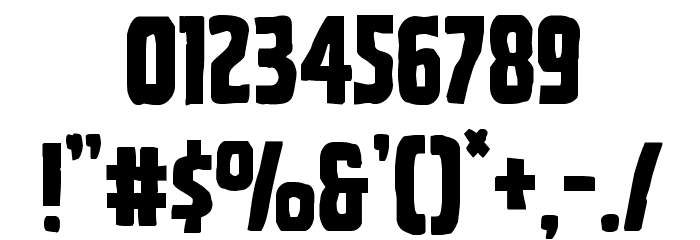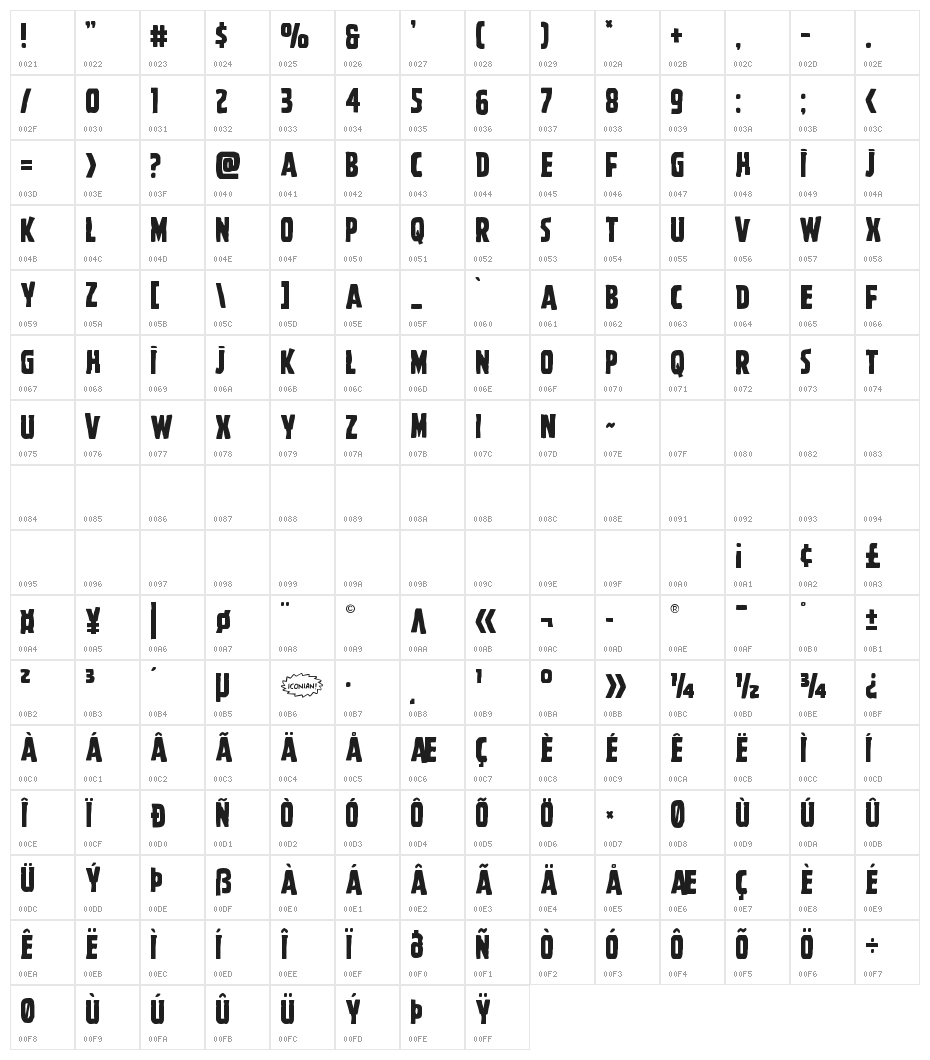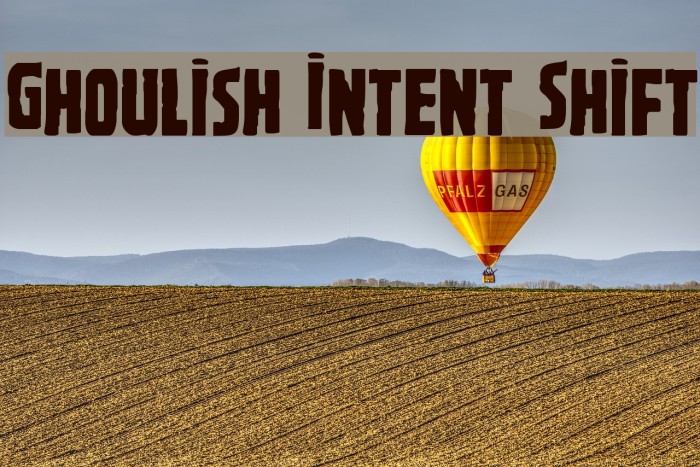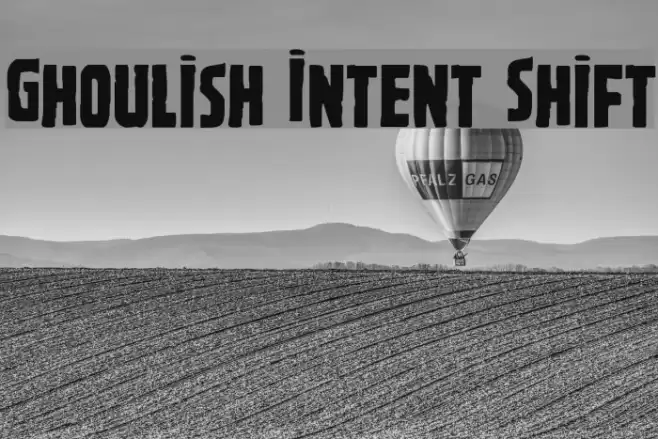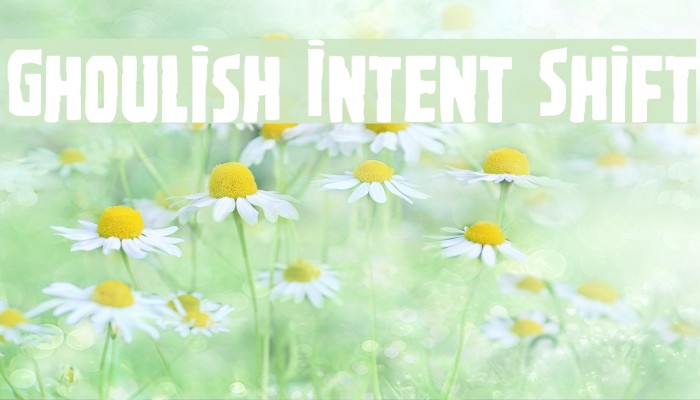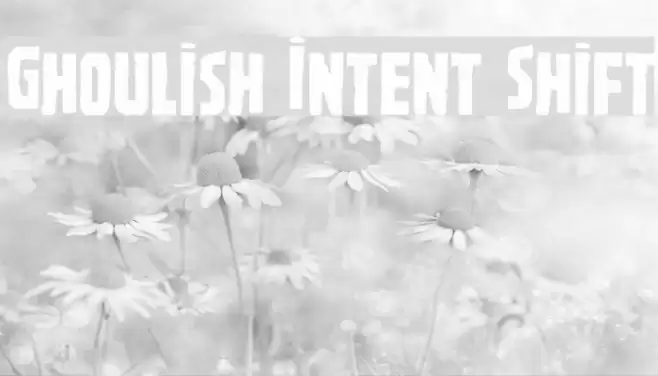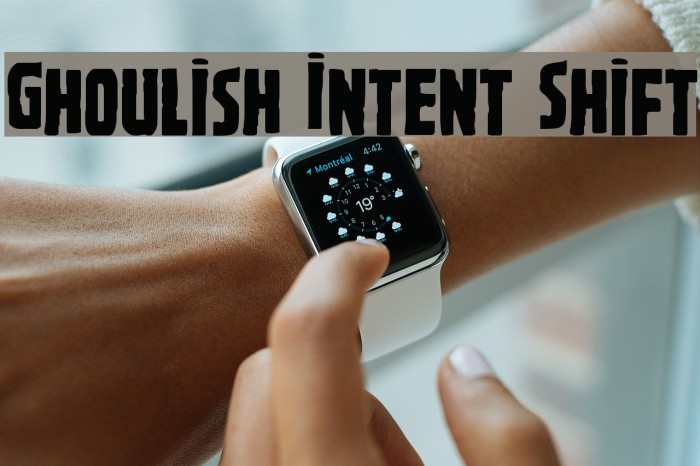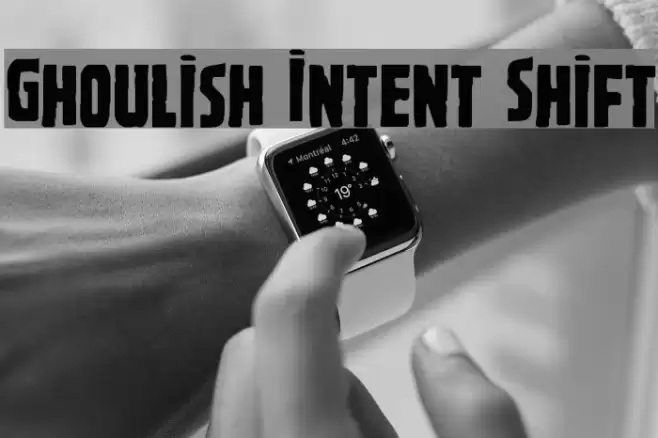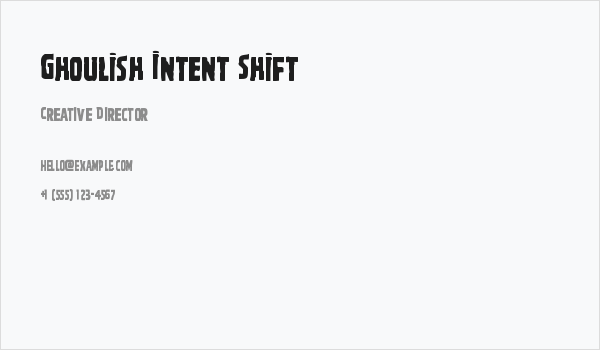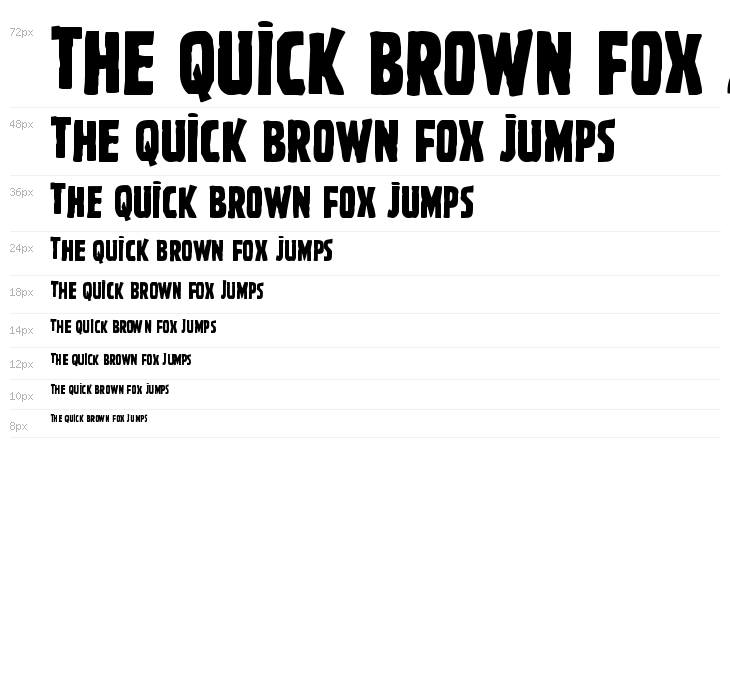
Ghoulish Intent Shift Font
Ghoulish Intent Shift Description
This font features a bold and striking design with a slightly distressed appearance, giving it a rugged and edgy feel. The characters are thick and blocky, with uneven edges that add to its unique style. The uppercase letters are particularly prominent, making it ideal for attention-grabbing headlines or titles. The numbers and special characters maintain the same boldness and irregularity, ensuring consistency across all text elements. Its distinctive look makes it suitable for projects that require a dramatic and impactful visual presence.
| Proposed Projects | Ideal for horror-themed posters, Halloween invitations, edgy branding, or any project needing a dramatic and bold typeface. |